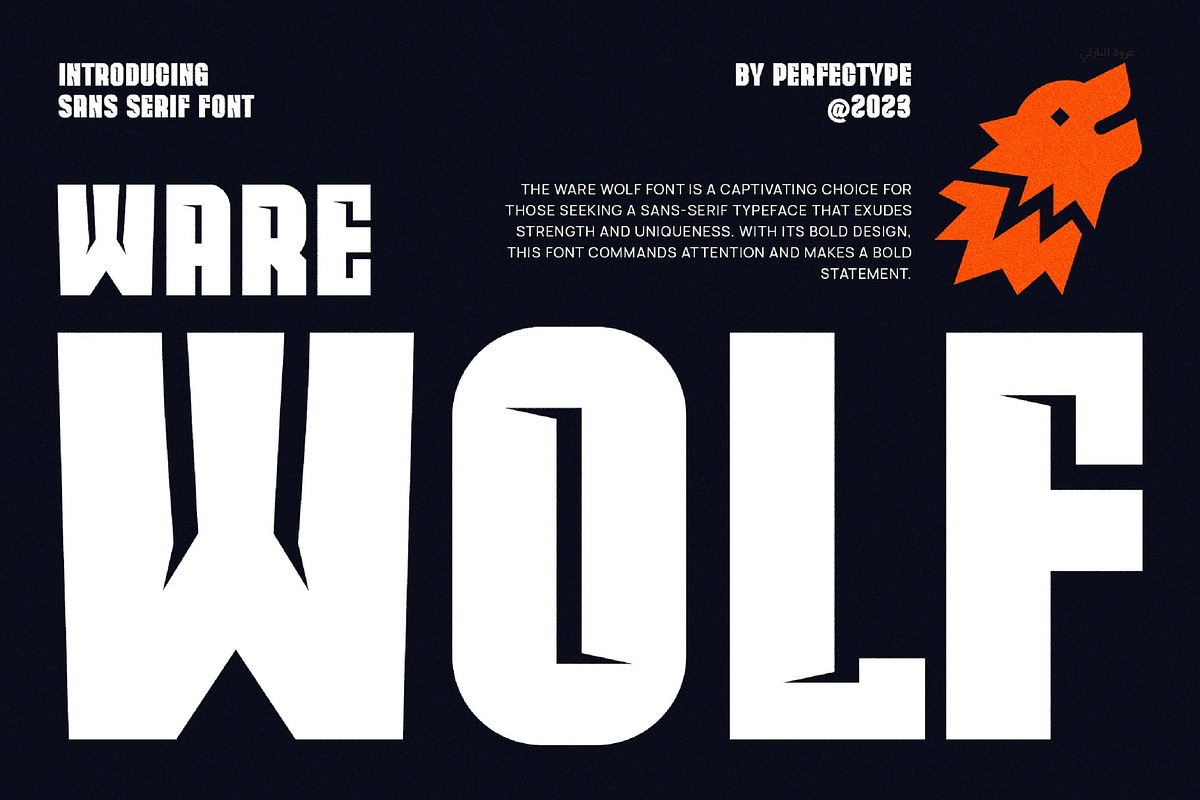
Ware Wolf Font
Ware Wolf Font is a professionally designed typeface that delivers clarity, structure, and consistent performance across various design applications. This typeface encapsulates a rhythm that is symmetrical and balanced due to a unique mix of different sources of inspiration. Proportions are precisely adjusted with subtle contours and subtle contrasts. These shapes give the font an attractive look without compromising on elegance and minimalism, ensuring that any glyph will work well in any graphic design purpose such as brochures, videos, advertising branding, logos, magazines, layout designs, posters, post templates, games and others